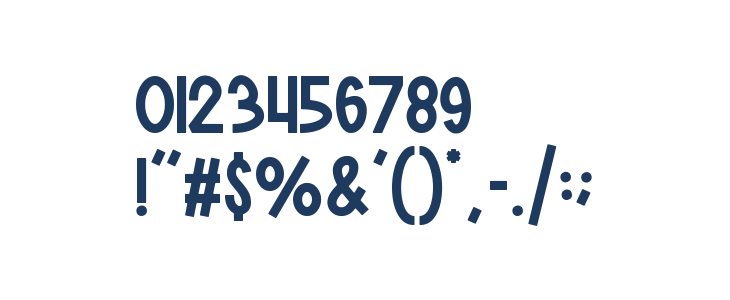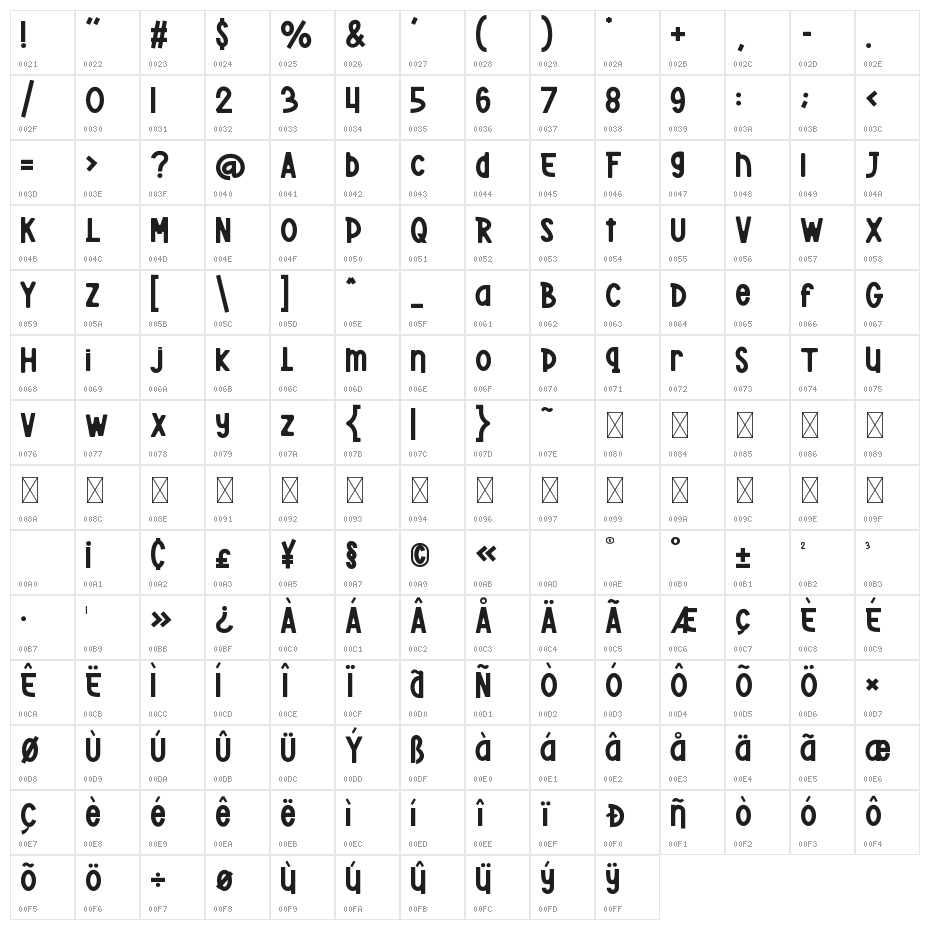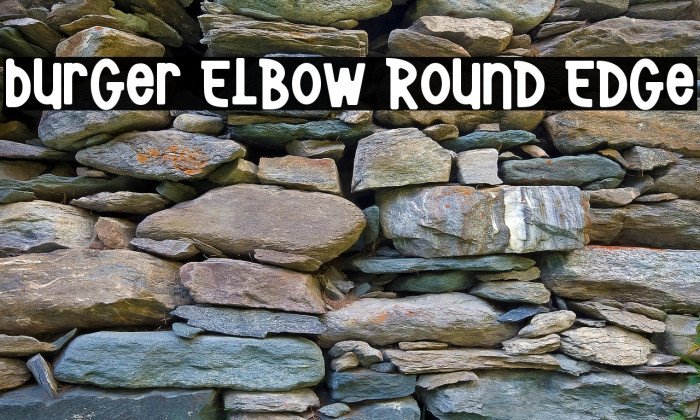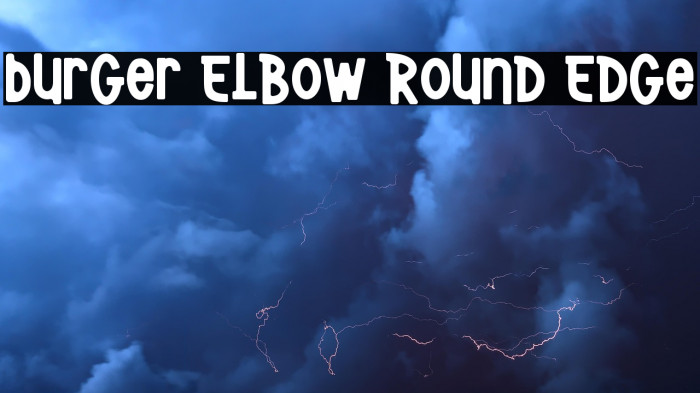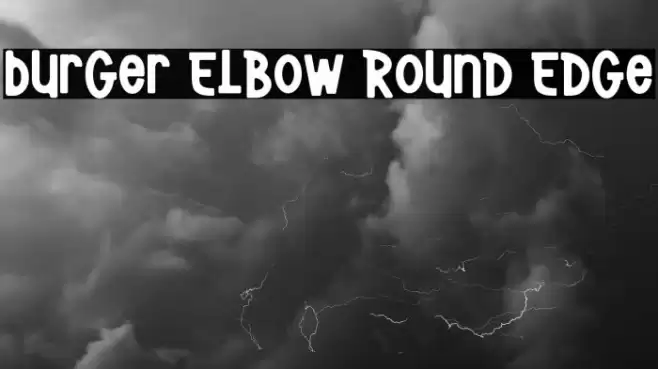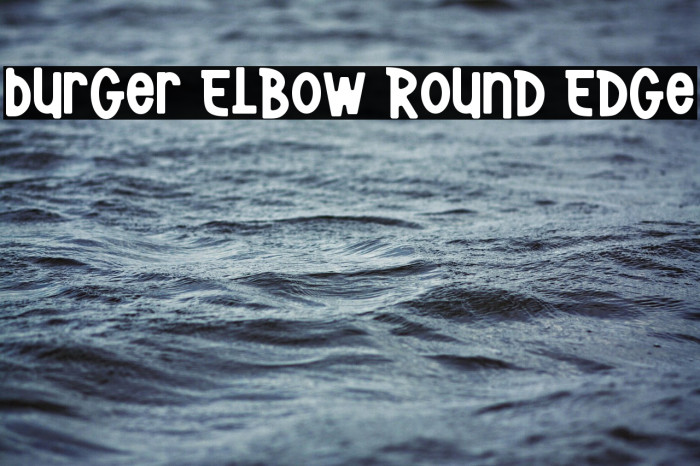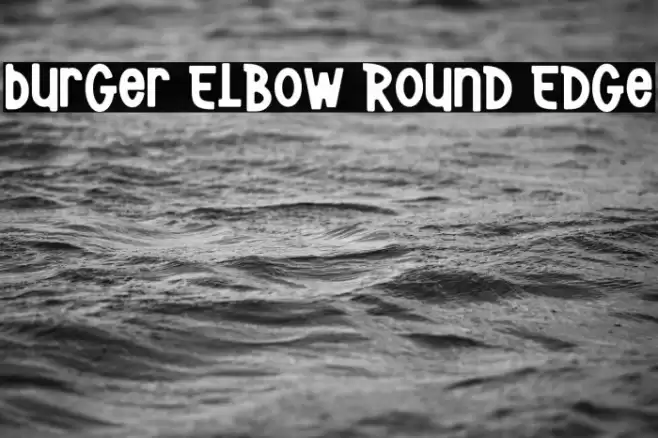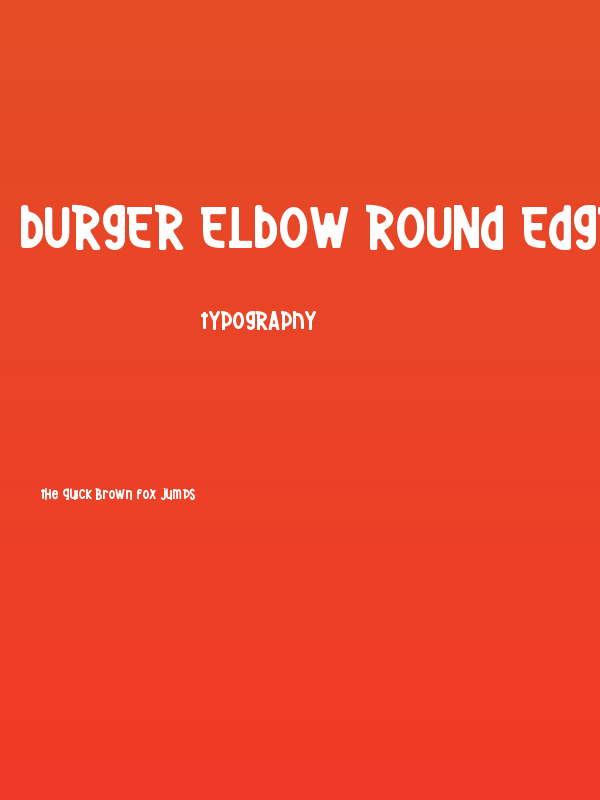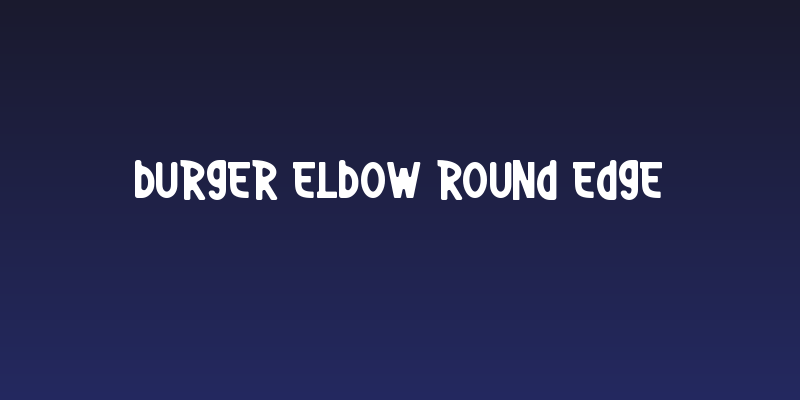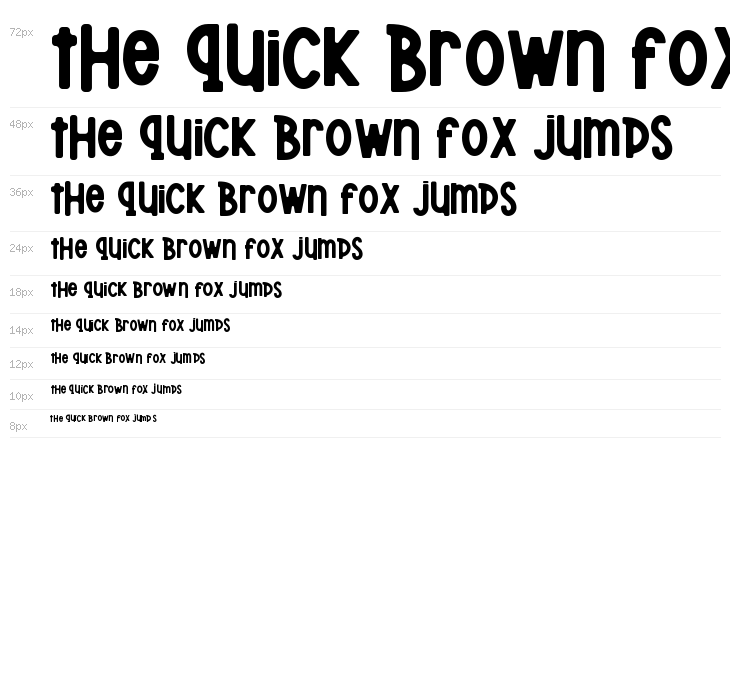
Burger Elbow Round Edge Font
Burger Elbow Round Edge Description
This font features a playful and bold design with rounded edges, giving it a friendly and approachable appearance. The characters are thick and uniform, with a consistent stroke width that adds to its boldness. The rounded terminals and curves create a soft and inviting look, making it suitable for casual and fun applications. The uppercase and lowercase letters maintain a consistent style, with the lowercase letters slightly smaller but equally bold. The numerals and special characters are designed to match the overall style, ensuring a cohesive look across all text elements.
| Proposed Projects | Ideal for children's books, playful branding, posters, and casual invitations. |